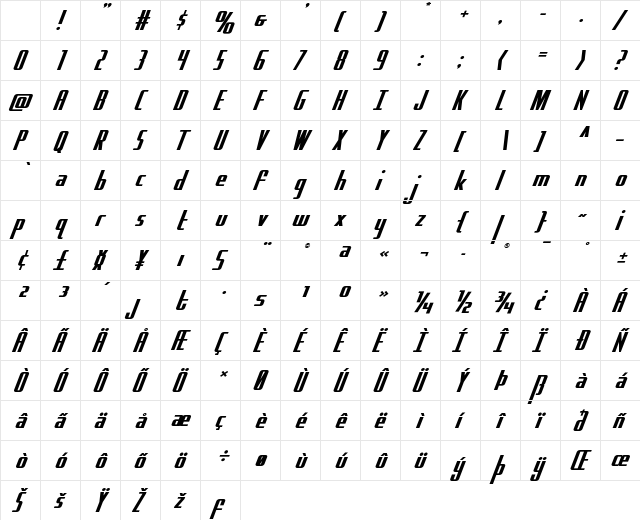
Complete Hydro Squad Expanded Italic glyph index. Displaying only characters natively supported by Hydro Squad Expanded Italic font.
Hydro Squad Expanded is a composed and adaptable typeface that performs quietly and consistently across a wide range of design contexts. The slanted form adds forward momentum and visual energy.